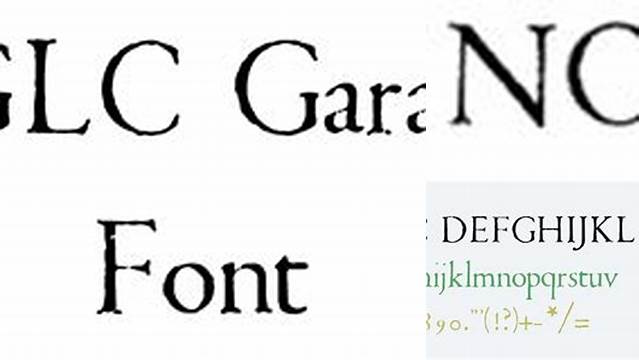
Are you a font enthusiast or a designer looking to add a touch of classic elegance to your projects? Look no further! The 1592 GLC Garamond font is a true masterpiece that has stood the test of time. In this comprehensive article, we'll dive deep into the history, characteristics, and applications of this remarkable typeface, and most importantly, guide you on how to download it for free.
Unveiling the History of Garamond
Before we delve into the specifics of the 1592 GLC Garamond font, it's essential to understand the rich history behind the Garamond typeface family. The story begins in the 16th century with Claude Garamond, a renowned Parisian engraver, punch-cutter, and printer. Garamond's fonts, based on the Venetian typeface style pioneered by Aldus Manutius and Francesco Griffo, quickly gained popularity for their legibility and elegance. His designs were characterized by their harmonious proportions, delicate serifs, and a gentle rhythm that made them a joy to read.
Claude Garamond's original types were used in many significant publications, establishing his legacy as one of the most influential figures in the history of typography. His fonts were not just tools for printing; they were works of art that elevated the written word to new heights. The clarity and grace of Garamond's designs made them a favorite among scholars, publishers, and readers alike. The influence of his work can still be seen in the countless Garamond revivals and adaptations that exist today, each seeking to capture the essence of his original vision. The 1592 GLC Garamond font is one such revival, meticulously crafted to honor Garamond's legacy while offering a contemporary touch for modern design applications. The enduring appeal of Garamond lies in its timeless quality; it manages to be both classic and contemporary, making it a versatile choice for a wide range of projects. From books and magazines to branding and web design, Garamond's elegance and readability make it a font that never goes out of style. Its subtle beauty and refined details make it a font that communicates sophistication and trustworthiness, perfect for projects that aim to convey a sense of tradition and quality. Whether you're designing a formal invitation, a corporate report, or a literary masterpiece, Garamond offers a level of elegance and clarity that few other fonts can match. Its graceful curves and balanced letterforms create a harmonious reading experience, ensuring that your message is conveyed with both style and substance. The history of Garamond is a testament to the power of good design and the enduring impact of a true master craftsman. Claude Garamond's legacy lives on in every carefully crafted letter of the 1592 GLC Garamond font, reminding us of the importance of tradition and the timeless beauty of well-designed typography.
The Distinctive Features of 1592 GLC Garamond
The 1592 GLC Garamond font is a specific revival of the classic Garamond typeface, meticulously designed to capture the essence of the original while incorporating modern refinements. This particular version stands out due to its attention to detail and commitment to preserving the historical accuracy of Garamond's work. One of the key characteristics of the 1592 GLC Garamond is its exceptional legibility. The font's carefully crafted letterforms, with their balanced proportions and elegant serifs, make it a pleasure to read in both print and digital formats. The serifs, those small strokes at the ends of the letters, play a crucial role in guiding the eye and enhancing readability, especially in longer texts. The 1592 GLC Garamond also boasts a distinctive x-height, which refers to the height of the lowercase letters relative to the uppercase letters. This balance contributes to the font's overall harmony and readability, ensuring that the text flows smoothly across the page or screen. The font's weight and contrast are also carefully considered, with a subtle variation in stroke thickness that adds to its visual appeal without compromising its clarity. This attention to detail makes the 1592 GLC Garamond a versatile choice for a wide range of applications, from body text in books and articles to headlines and captions in magazines and websites. The font's elegance and sophistication make it particularly well-suited for projects that require a touch of class and refinement. In addition to its aesthetic qualities, the 1592 GLC Garamond is also known for its versatility. It works equally well in large and small sizes, making it an excellent choice for everything from posters and advertisements to business cards and stationery. The font's clean lines and classic design ensure that it will remain timeless and relevant, regardless of current design trends. Another notable feature of the 1592 GLC Garamond is its extensive character set, which includes a wide range of ligatures, alternates, and special characters. These additional glyphs allow designers to add a unique and customized touch to their work, enhancing the font's versatility and expressive potential. Ligatures, for example, are special characters that combine two or more letters into a single glyph, improving the overall appearance and readability of the text. Alternates offer different stylistic variations of certain letters, providing designers with even more flexibility and control over the font's appearance. The inclusion of these features demonstrates the care and attention to detail that went into the creation of the 1592 GLC Garamond font, making it a valuable asset for any designer or typographer looking to add a touch of classic elegance to their projects. The font's timeless appeal and exceptional readability make it a true masterpiece of typographic design.
Ideal Applications for 1592 GLC Garamond
The 1592 GLC Garamond font is a versatile typeface that lends itself well to a variety of applications. Its classic elegance and exceptional readability make it an ideal choice for projects that require a touch of sophistication and professionalism. One of the most common uses for Garamond is in book design. The font's graceful letterforms and balanced proportions create a comfortable reading experience, making it perfect for long passages of text. Many renowned publishers have chosen Garamond for their literary works, recognizing its ability to enhance the reader's engagement with the content. From novels and biographies to academic journals and textbooks, Garamond's timeless appeal makes it a staple in the world of book design. In addition to books, the 1592 GLC Garamond is also well-suited for magazines and newspapers. Its clarity and legibility make it easy to read in both headlines and body text, ensuring that the publication's message is conveyed effectively. The font's subtle elegance adds a touch of class to the overall design, making it a popular choice for publications that aim to project a sophisticated image. Garamond's versatility extends beyond print media, making it a valuable asset for web design as well. Its clean lines and classic design translate well to the screen, ensuring that websites and online content are both visually appealing and easy to read. Many designers use Garamond for headings and body text on websites, creating a cohesive and professional look. The font's timeless appeal also makes it a safe choice for web projects, as it will remain relevant and stylish for years to come. Furthermore, the 1592 GLC Garamond is an excellent choice for branding and corporate identity. Its elegance and sophistication can help businesses project a trustworthy and professional image. The font is often used in logos, business cards, and other marketing materials, creating a consistent brand identity across all platforms. Garamond's versatility allows it to be used in a wide range of industries, from financial services and law firms to luxury brands and educational institutions. Its timeless appeal ensures that the brand's image will remain consistent and recognizable over time. The 1592 GLC Garamond's suitability for formal documents such as resumes, cover letters, and legal papers cannot be overstated. Its classic and professional appearance makes it a safe and effective choice for presenting oneself in a serious and competent manner. The font's readability ensures that the document is easy to scan and understand, while its elegance adds a touch of sophistication that can help make a positive impression. Whether you are applying for a job, submitting a legal document, or creating any other type of formal communication, the 1592 GLC Garamond is a font that you can rely on to convey your message with clarity and style. Its timeless appeal and exceptional readability make it a versatile and valuable tool for any designer or communicator.
Conclusion: Embrace the Timeless Beauty of 1592 GLC Garamond